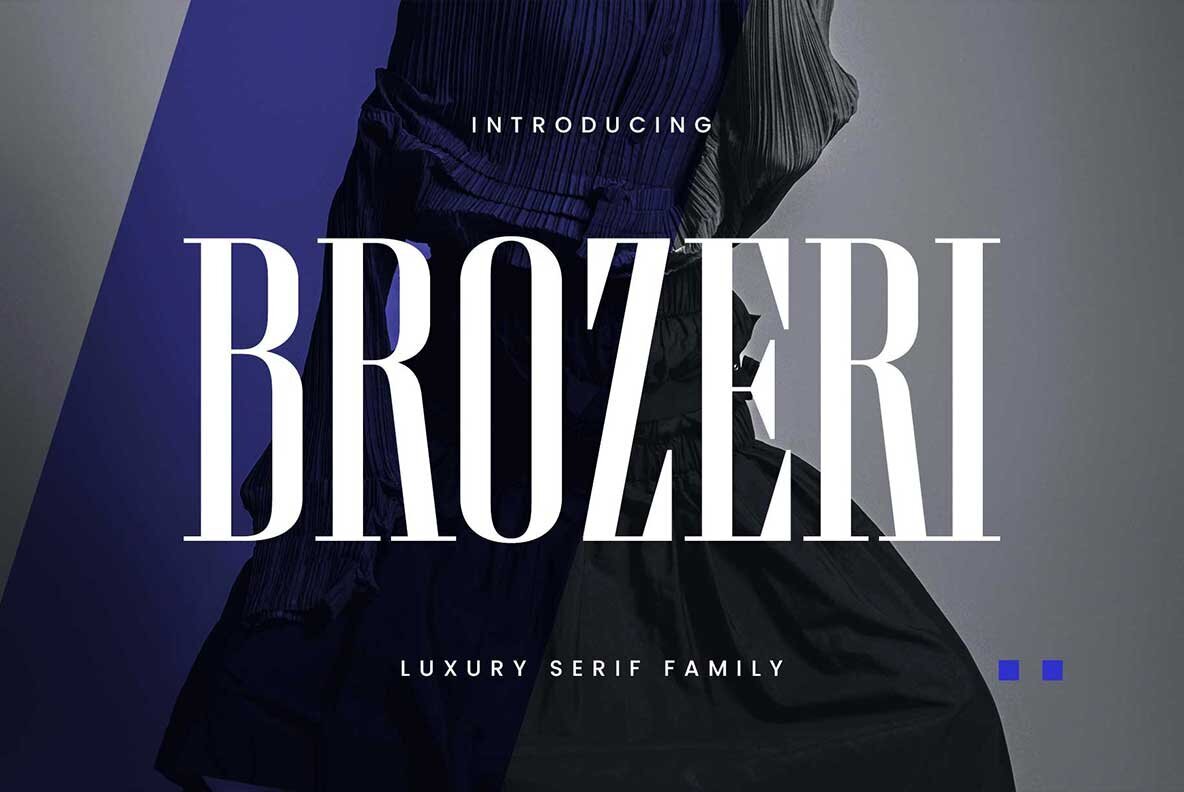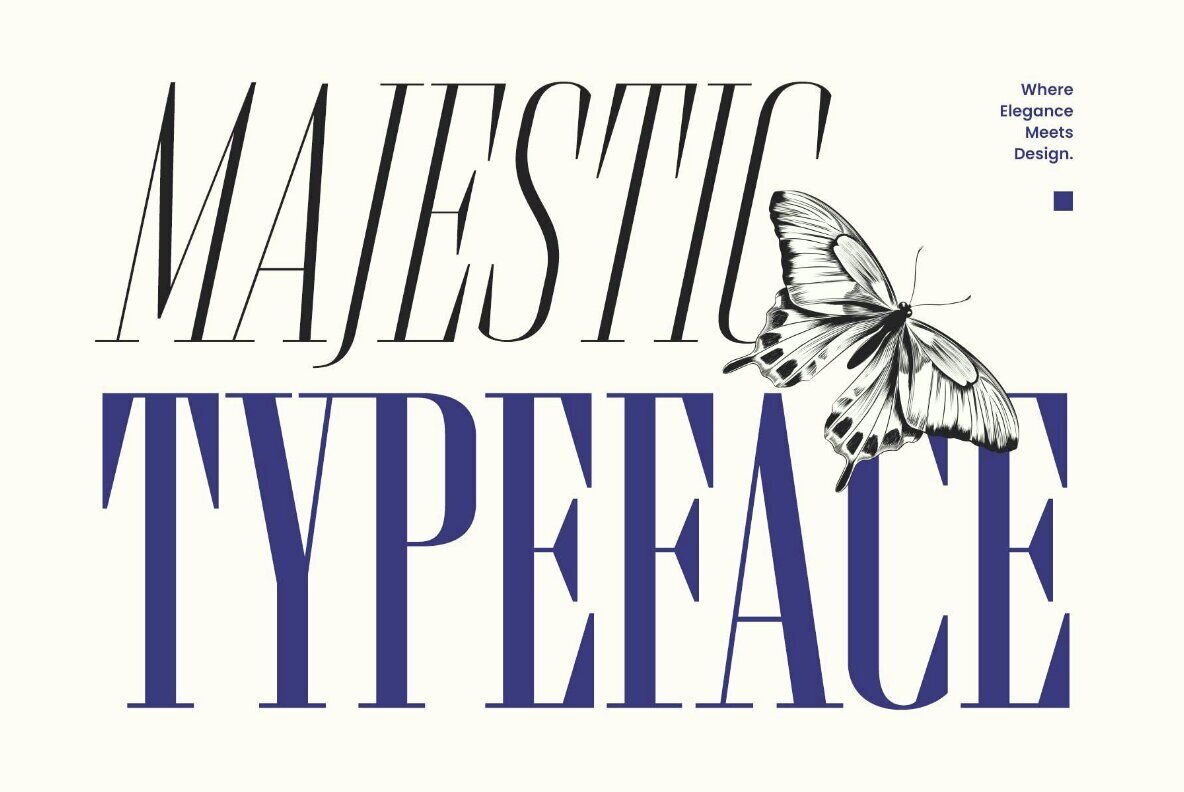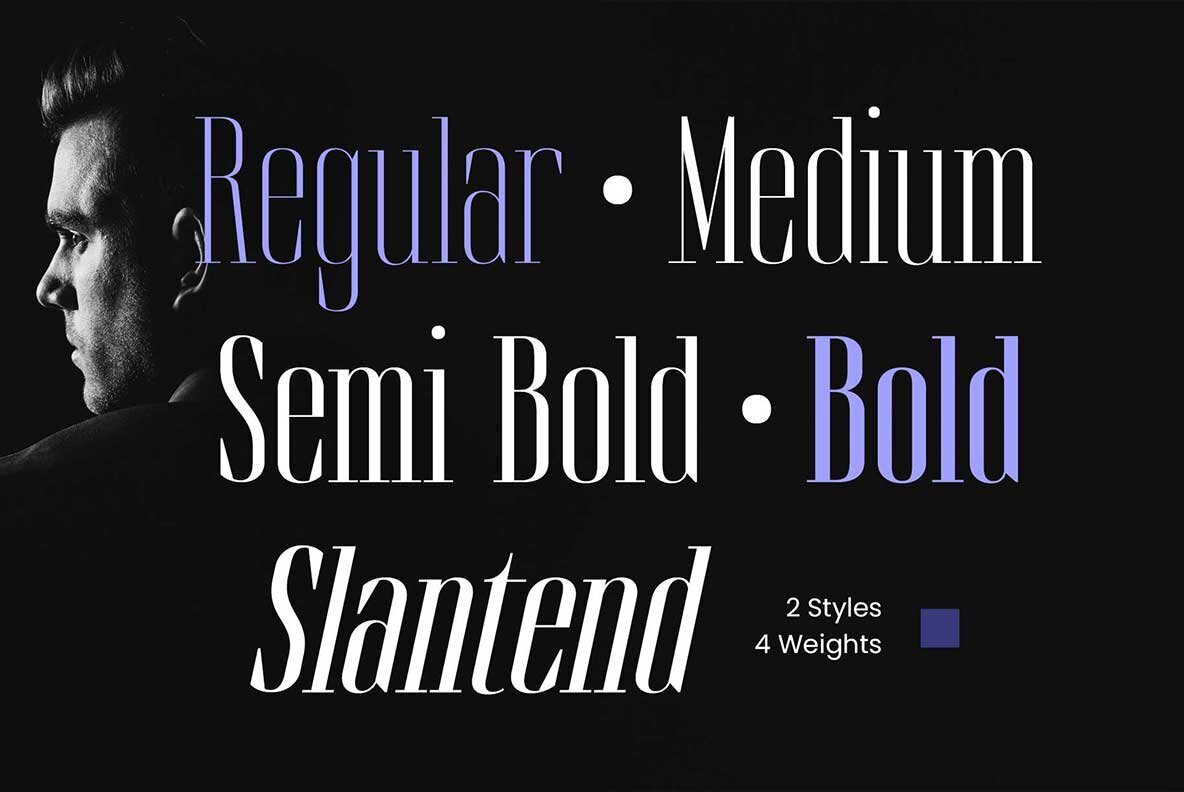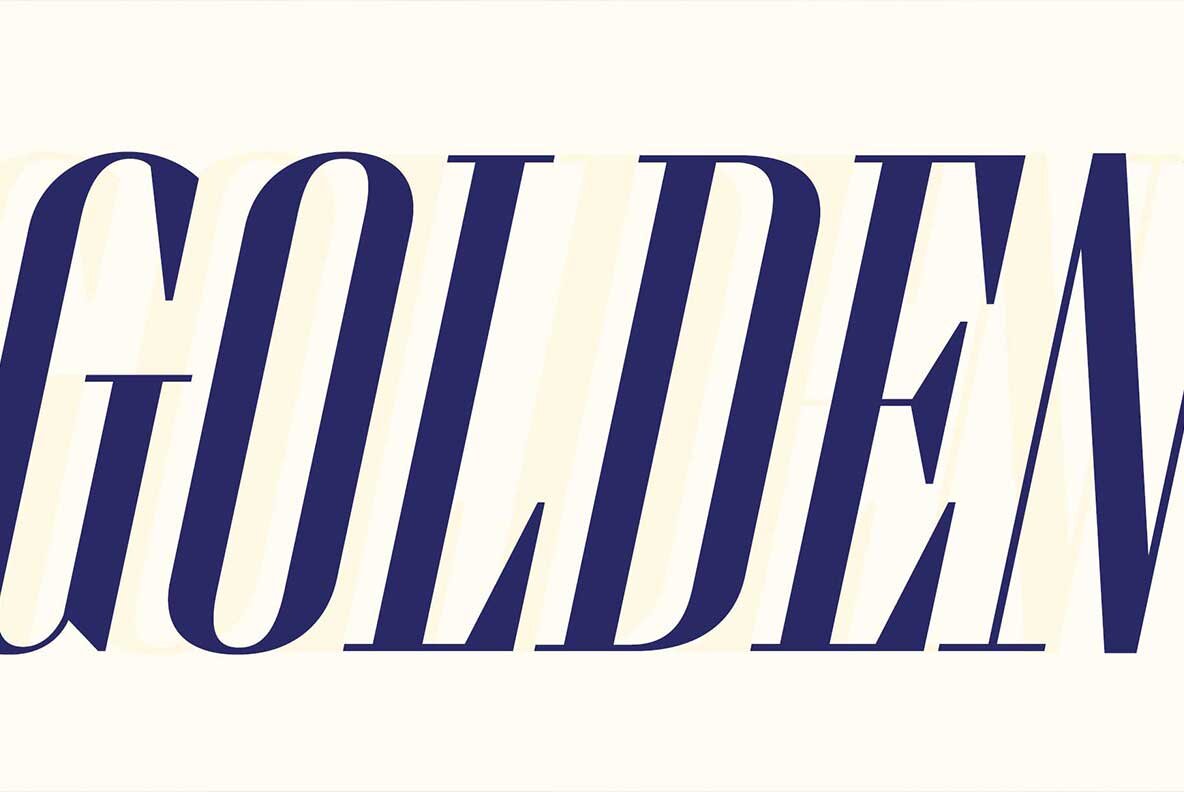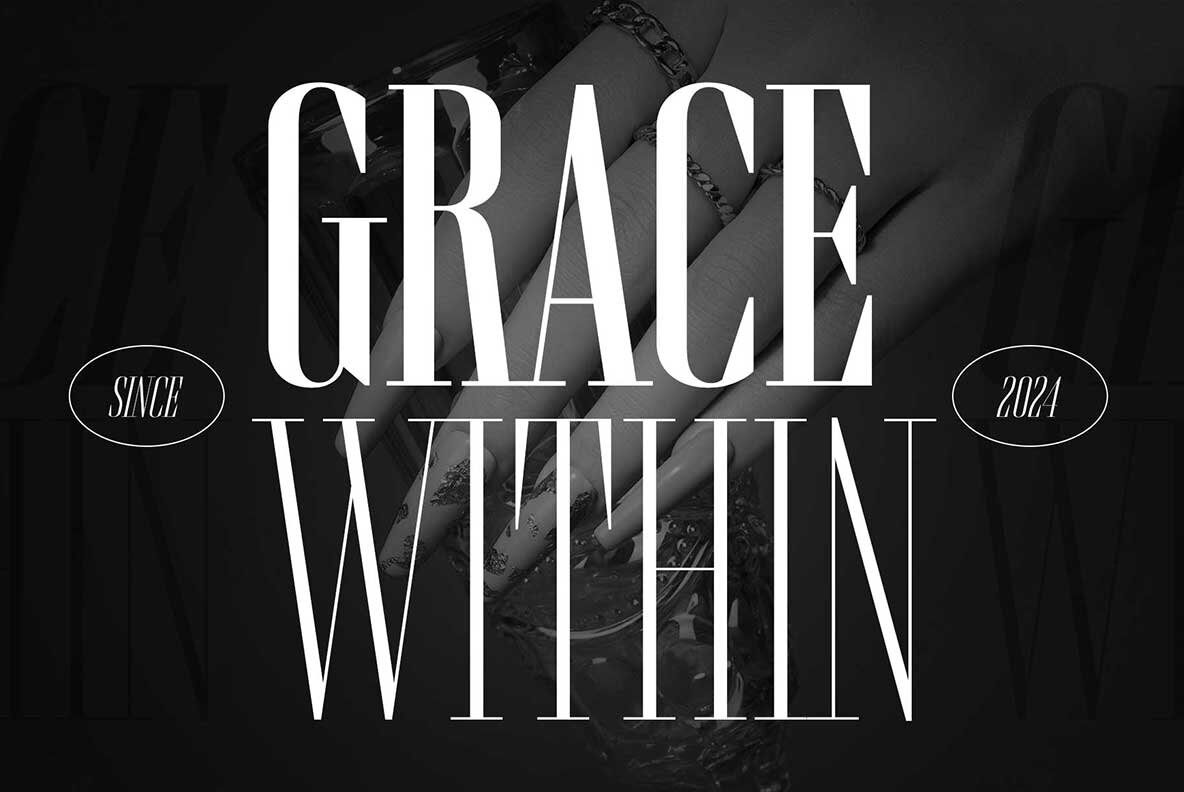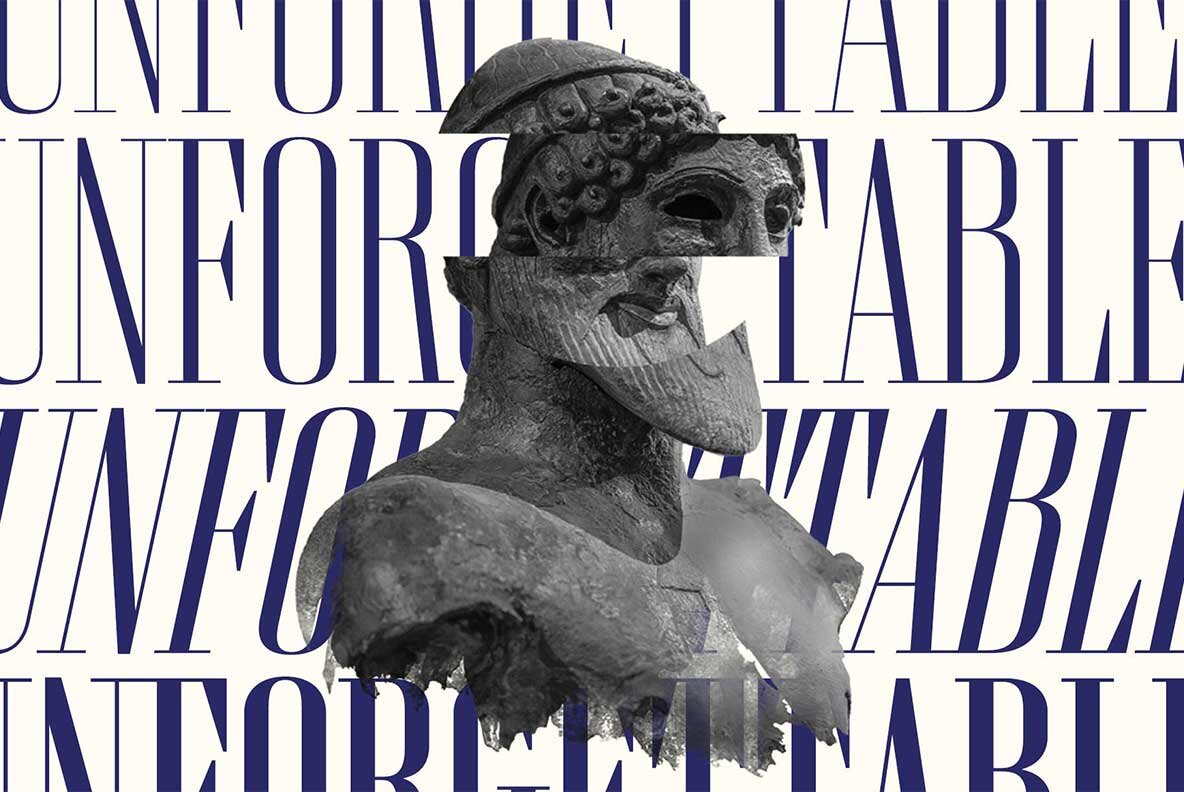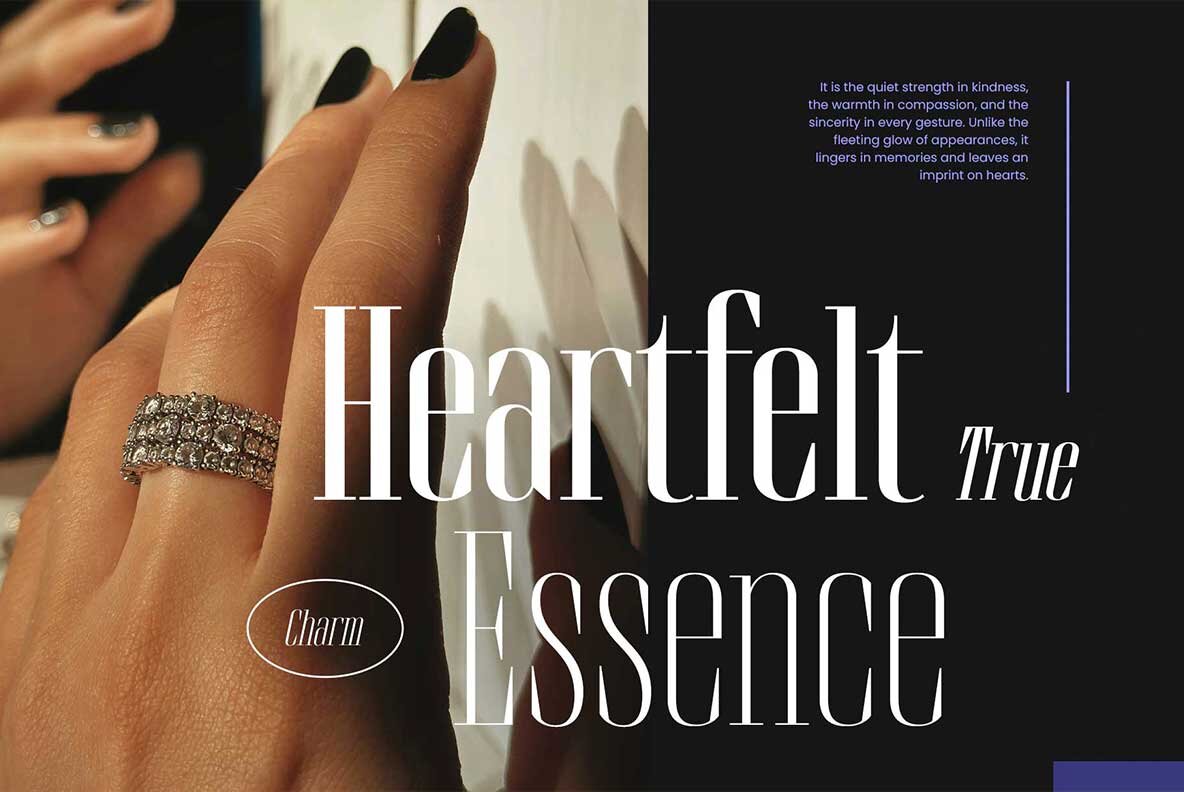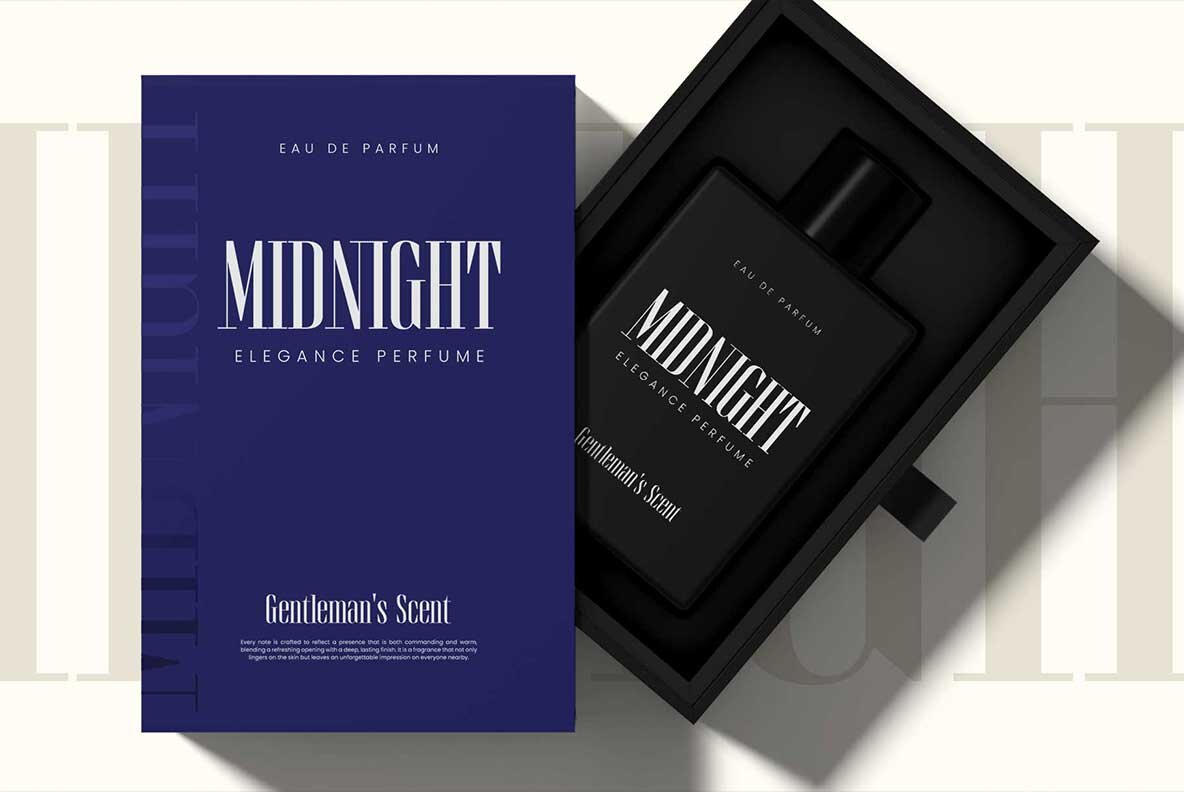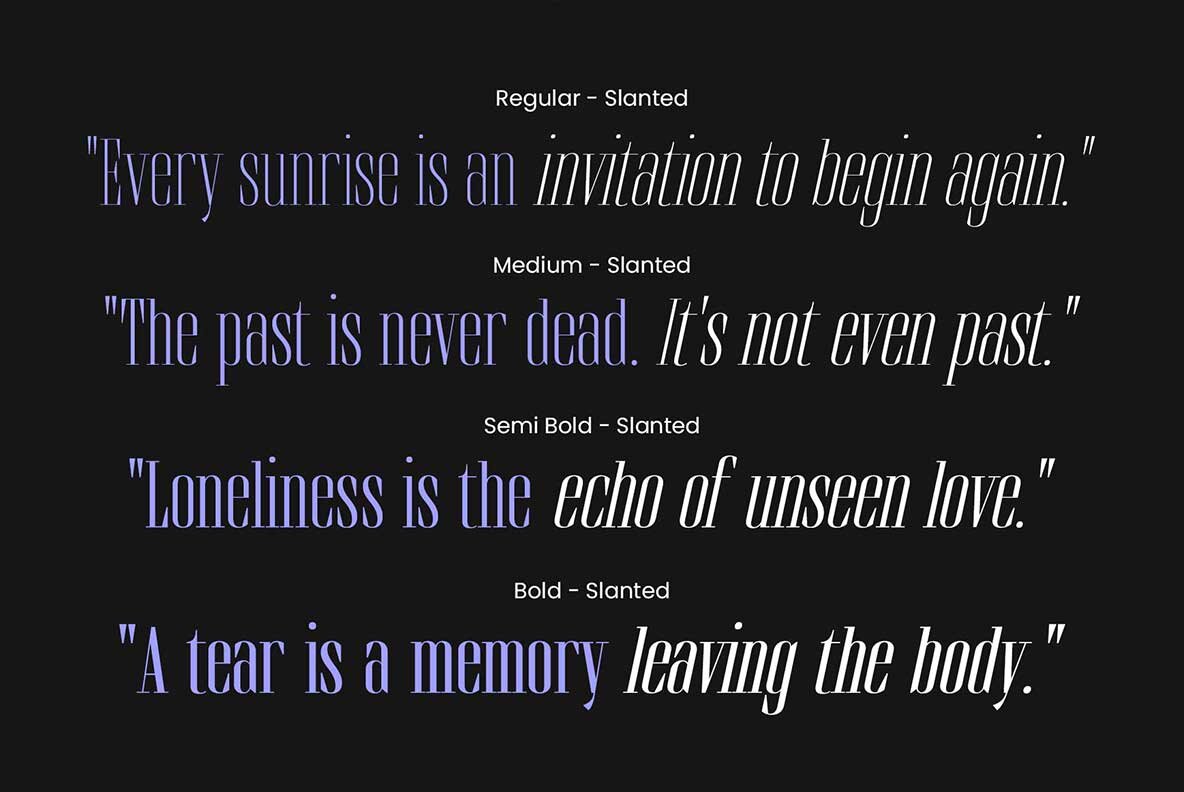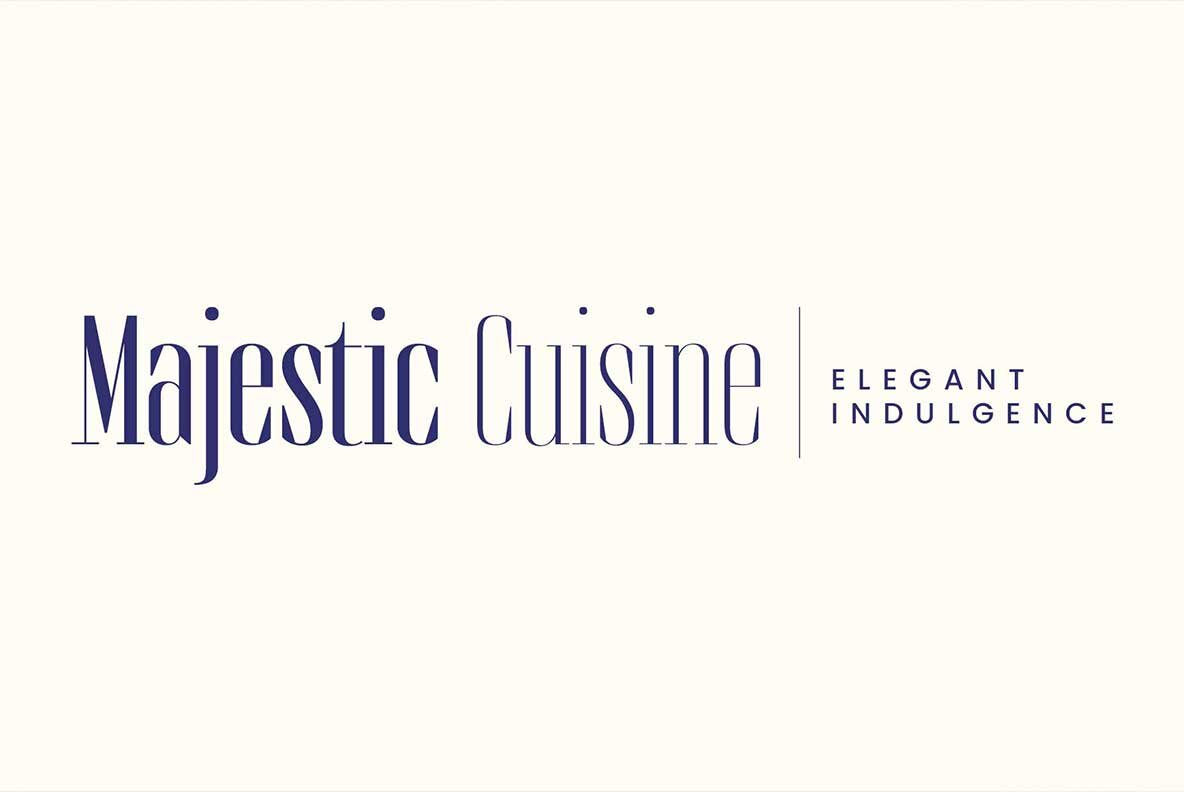
Brozeri Font
Brozeri is a striking condensed serif typeface, characterized by its bold contrast and firm, elegant serifs. Inspired by early 2000s typography, this font family brings a touch of authority and elegance to any design. Available in four distinct weights with matching slanted styles, Brozeri effortlessly blends confidence with a casual flair, making it a versatile choice for various projects. Ideal for headlines, labels, fashion branding, and editorial work, Brozeri ensures every design stands out with its unique character. The inclusion of stylistic alternates provides additional flexibility, allowing you to craft designs that are both classy and distinctive. Whether for logos, posters, or magazines, Brozeri offers a bold and captivating typographic solution.Brozeri Typeface